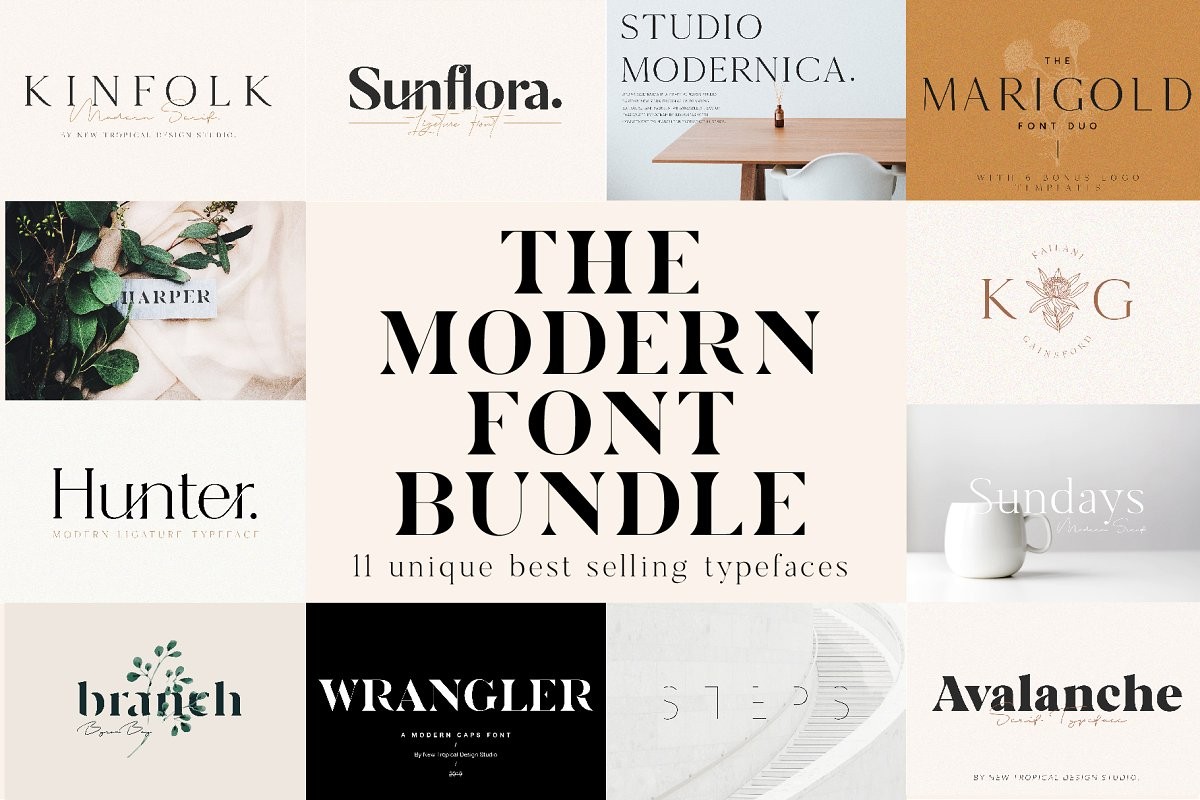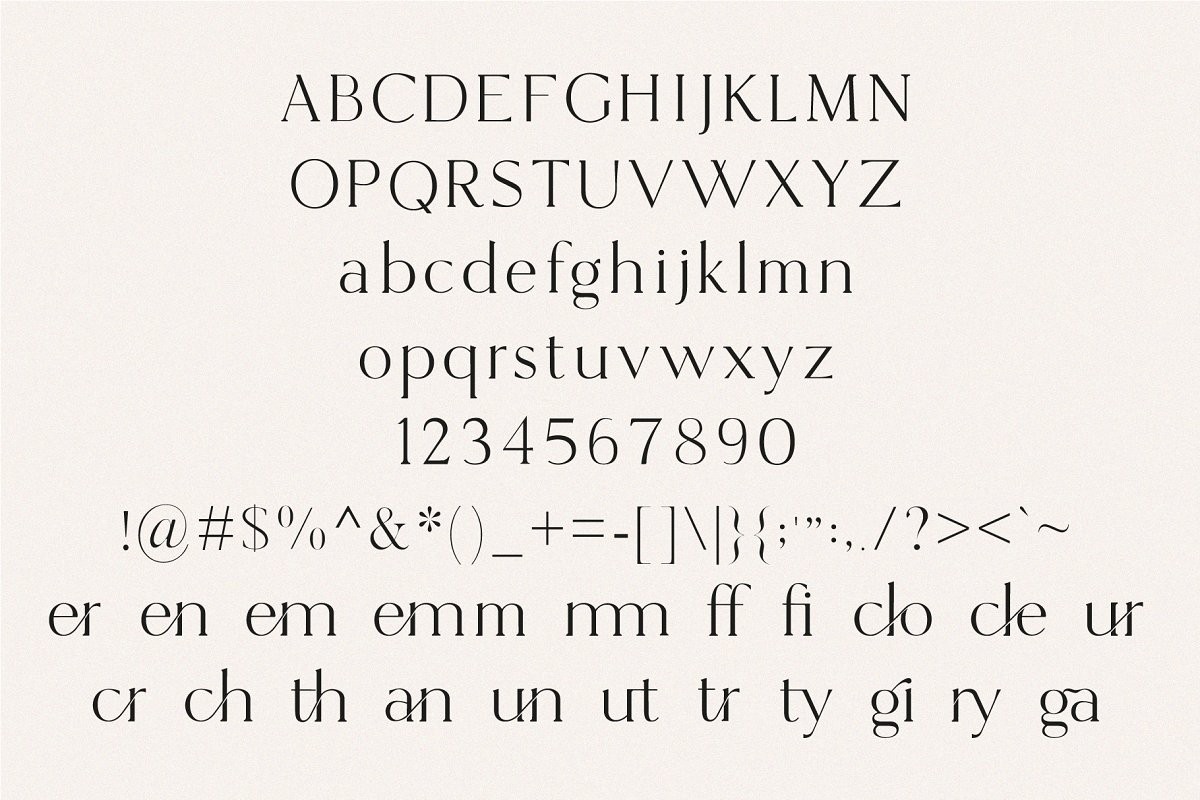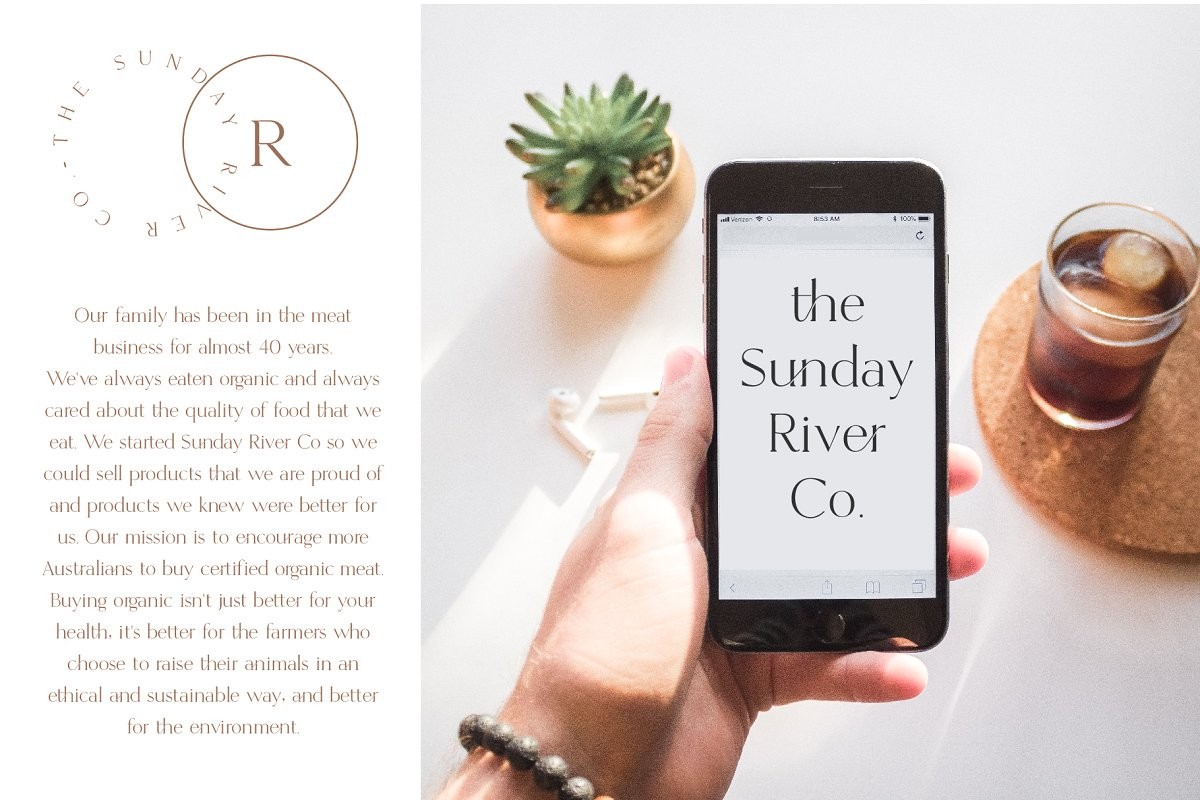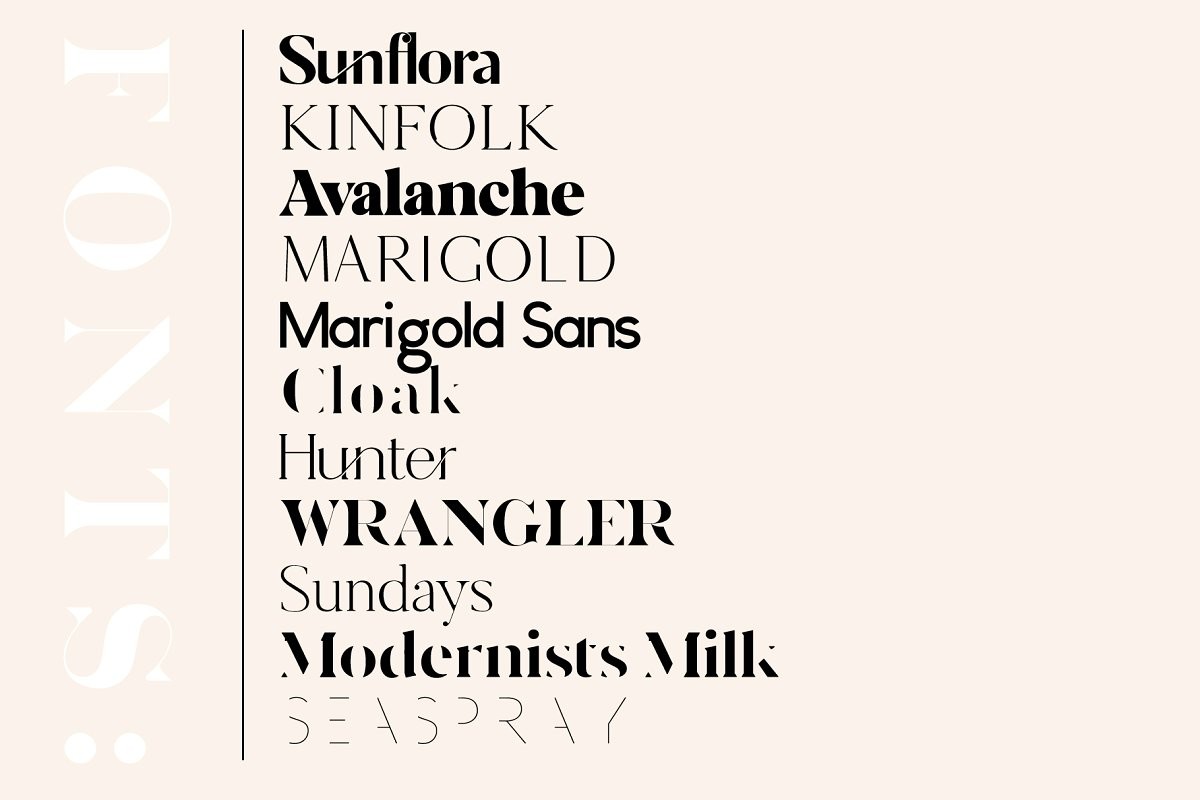
The Chic & Unique Modern Font Bundle
Save heaps of $$$ with the new Modern Font Bundle. All my best selling unique fonts for only $29! There are Serif, Non Serif and Experimental fonts all with that modern stylish look. No boring fonts filling up space, just 11 chic and unique typefaces plus 6 feminine logos thrown in.